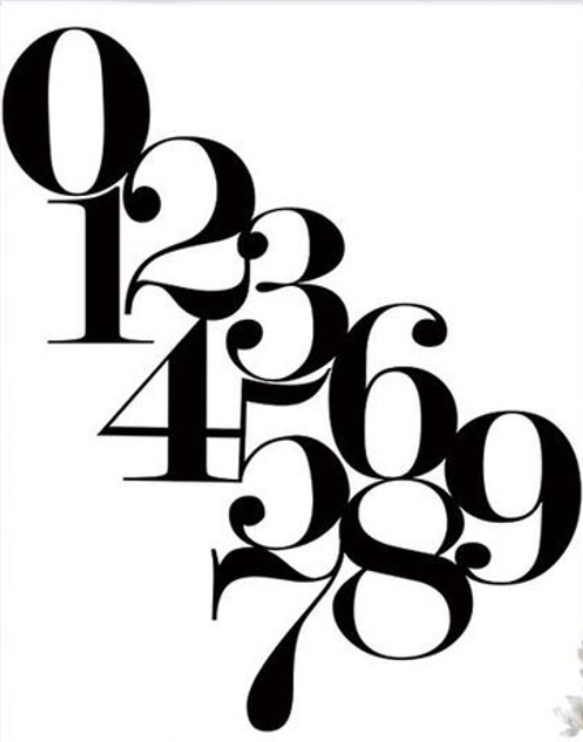
Please, identify this typeface!
This may be challenging because the only characters I got are numerals.
The closest I’ve come to identifying this is Bodoni, Baskerville and similar…although the font I’m searching for has distinctly different characteristics.
Modern No.20